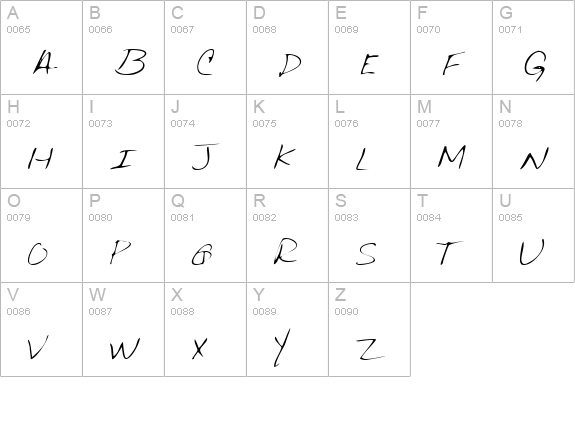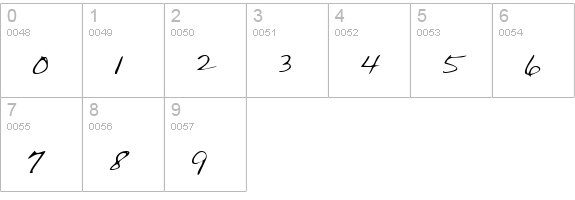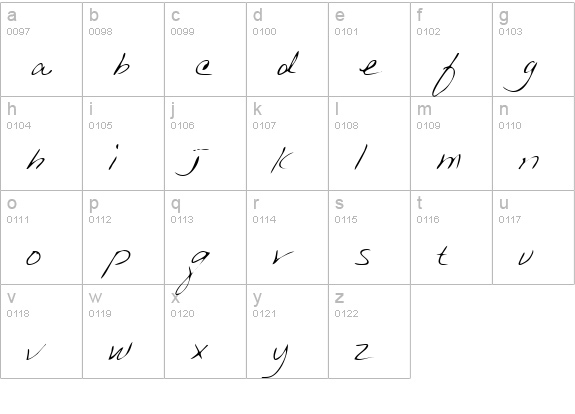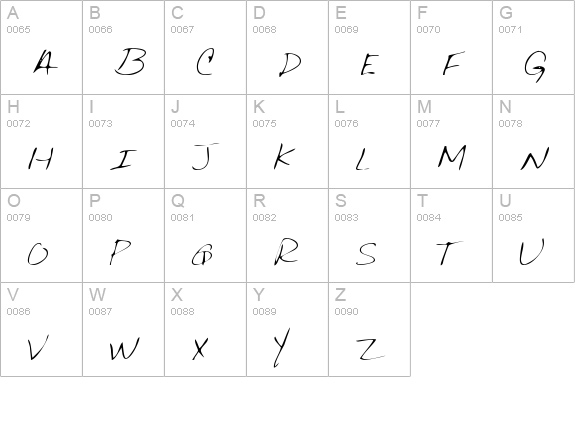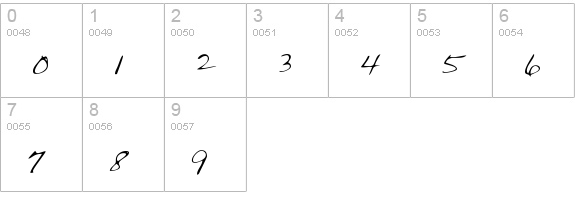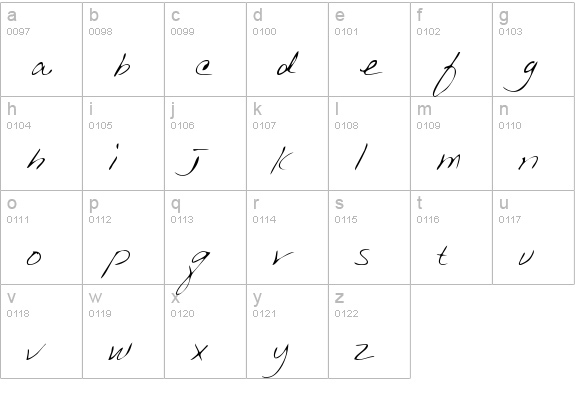
AnniesHand Regular Font Details
AnniesHand Regular is the standard, neutral variant in the AnniesHand typeface family \xE2\x80\x94 well suited to general body text, paragraphs, and standard typographic work.
AnniesHand Regular is a charming and elegant handwritten font that exudes a sense of warmth and friendliness. With its flowing curves and delicate strokes, this font is perfect for adding a personal touch to your designs. Whether you are creating invitations, greeting cards, or social media graphics, AnniesHand Regular will make your text stand out with its unique style. The best part is that AnniesHand Regular is available for free download at FontsMarket.com. Simply visit the website and easily access this beautiful font to enhance your projects. Don't miss out on the opportunity to elevate your designs with the timeless appeal of AnniesHand Regular.